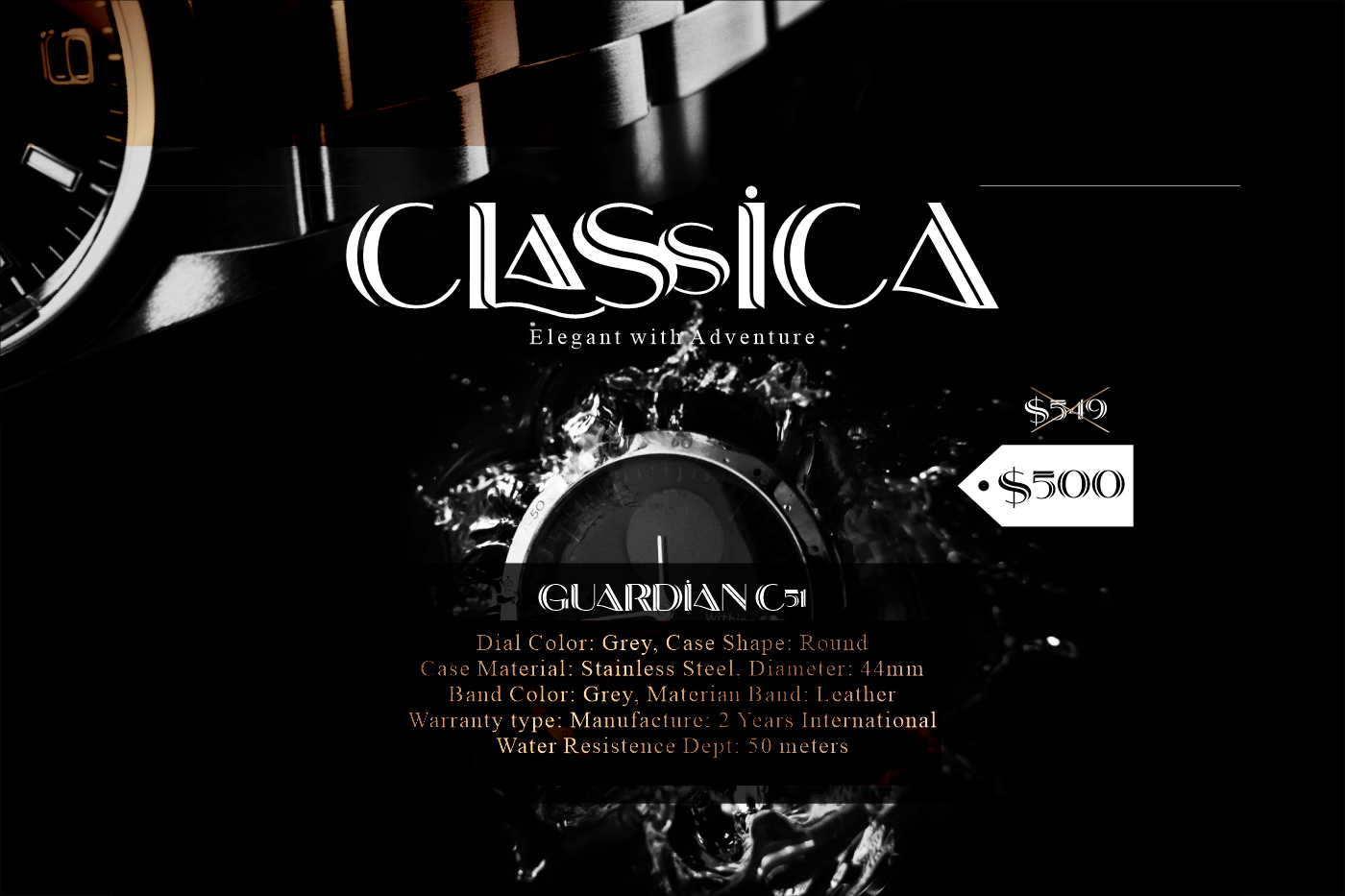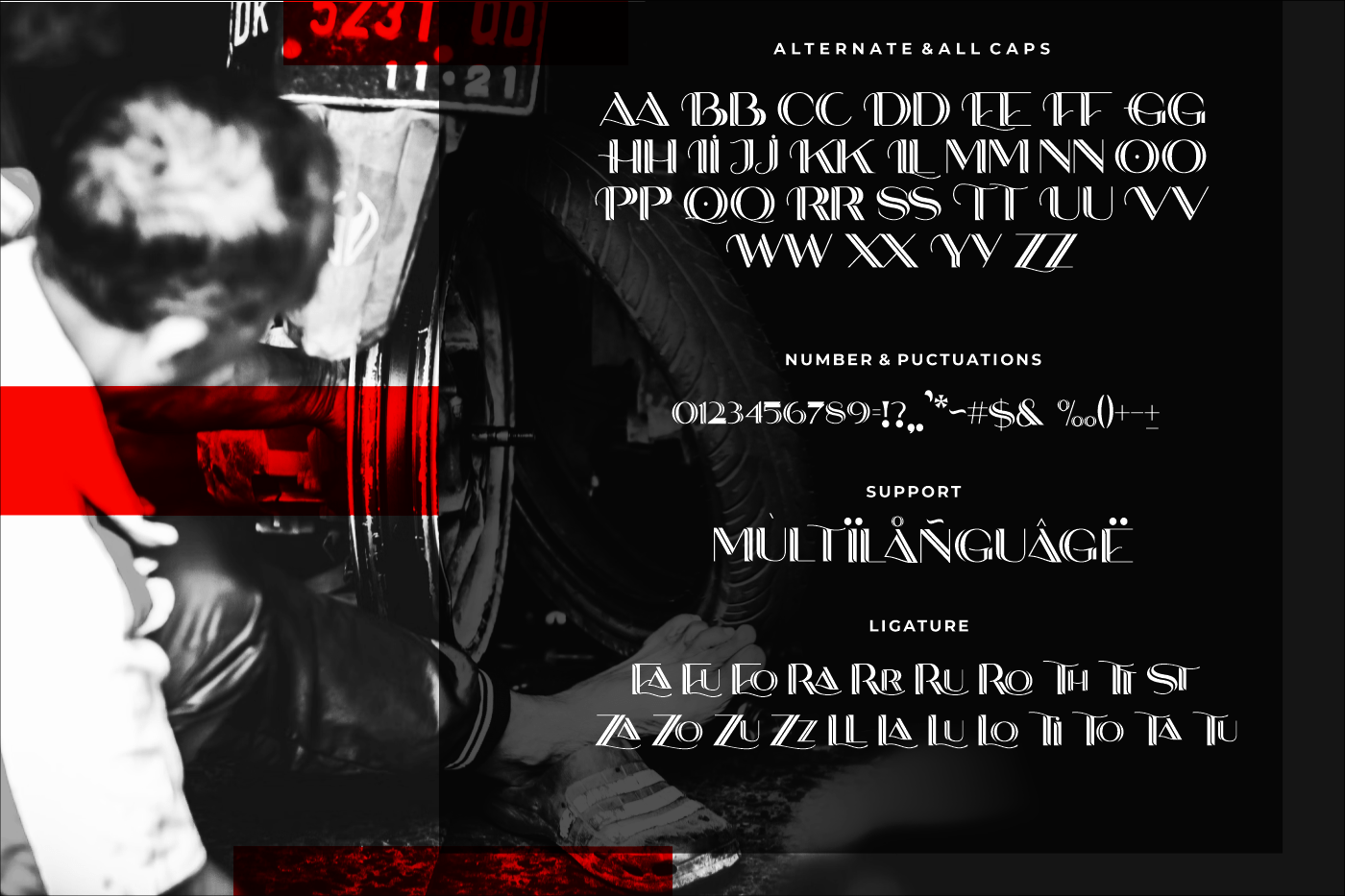
Eastory Display Font
This is a display font, with an inline line, and a combination of thick and thin letters. With a bold shape and a combination of thin and thick lines to make it look beautiful, this bold font can also look elegant with a cursive ligature and stylistic.